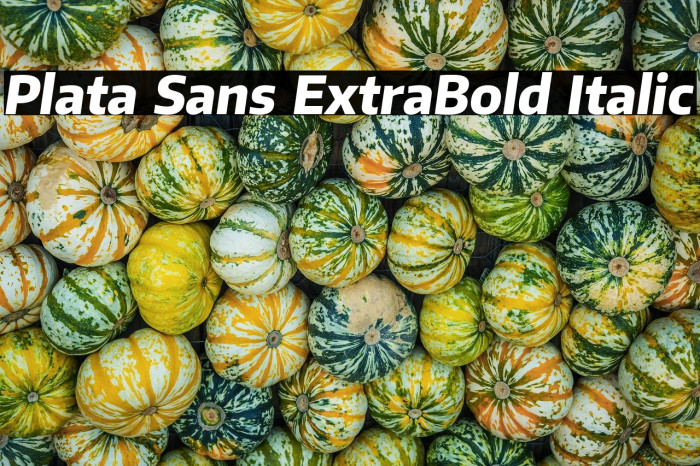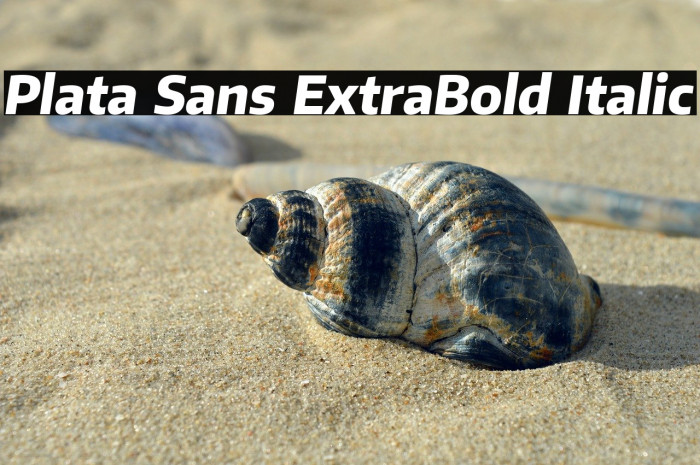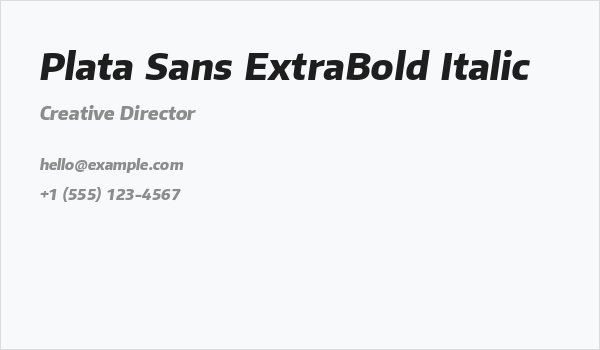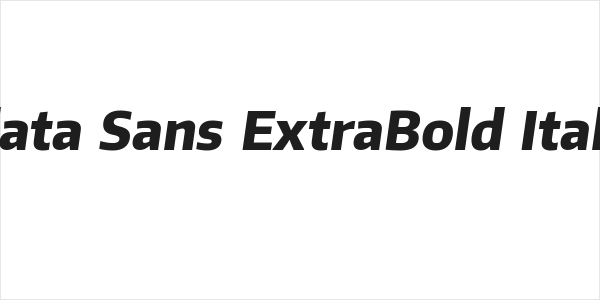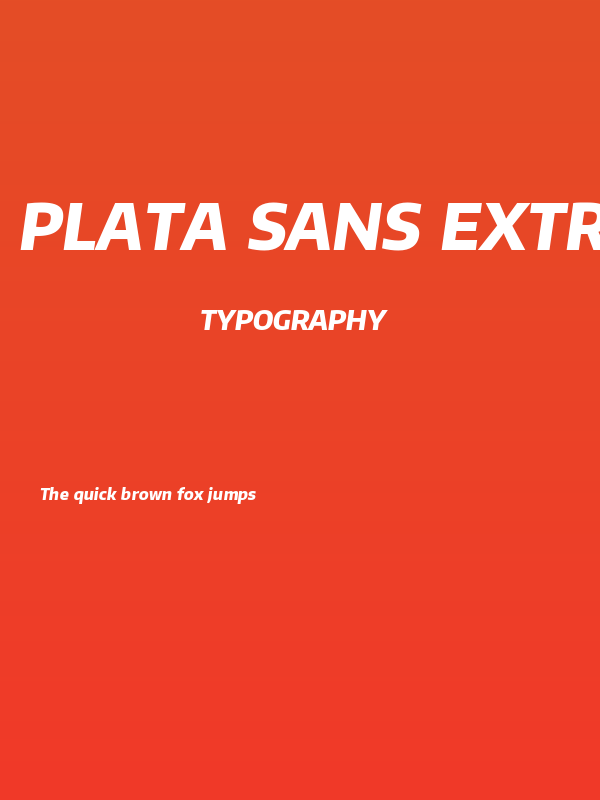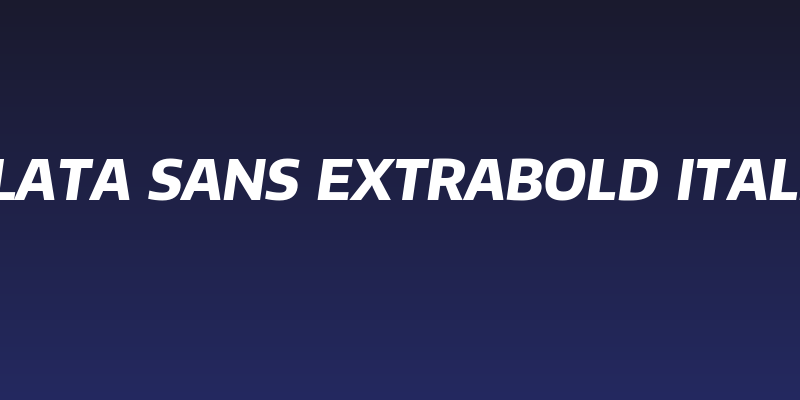
Plata Sans ExtraBold Italic Font
Plata Sans ExtraBold Italic Description
This typeface exhibits a bold and dynamic presence, characterized by its extra-bold weight and italic style. The letters are slightly slanted, adding a sense of motion and emphasis. The sans-serif design ensures a clean and modern look, with smooth curves and uniform stroke widths. The uppercase and lowercase letters are well-proportioned, maintaining readability across different sizes. The numerals and special characters are consistent with the overall style, providing a cohesive appearance. This font is versatile, suitable for both digital and print media, and can effectively capture attention while maintaining clarity.
| Proposed Projects | Ideal for branding, advertising, headlines, and digital media where a strong and modern impression is needed. |